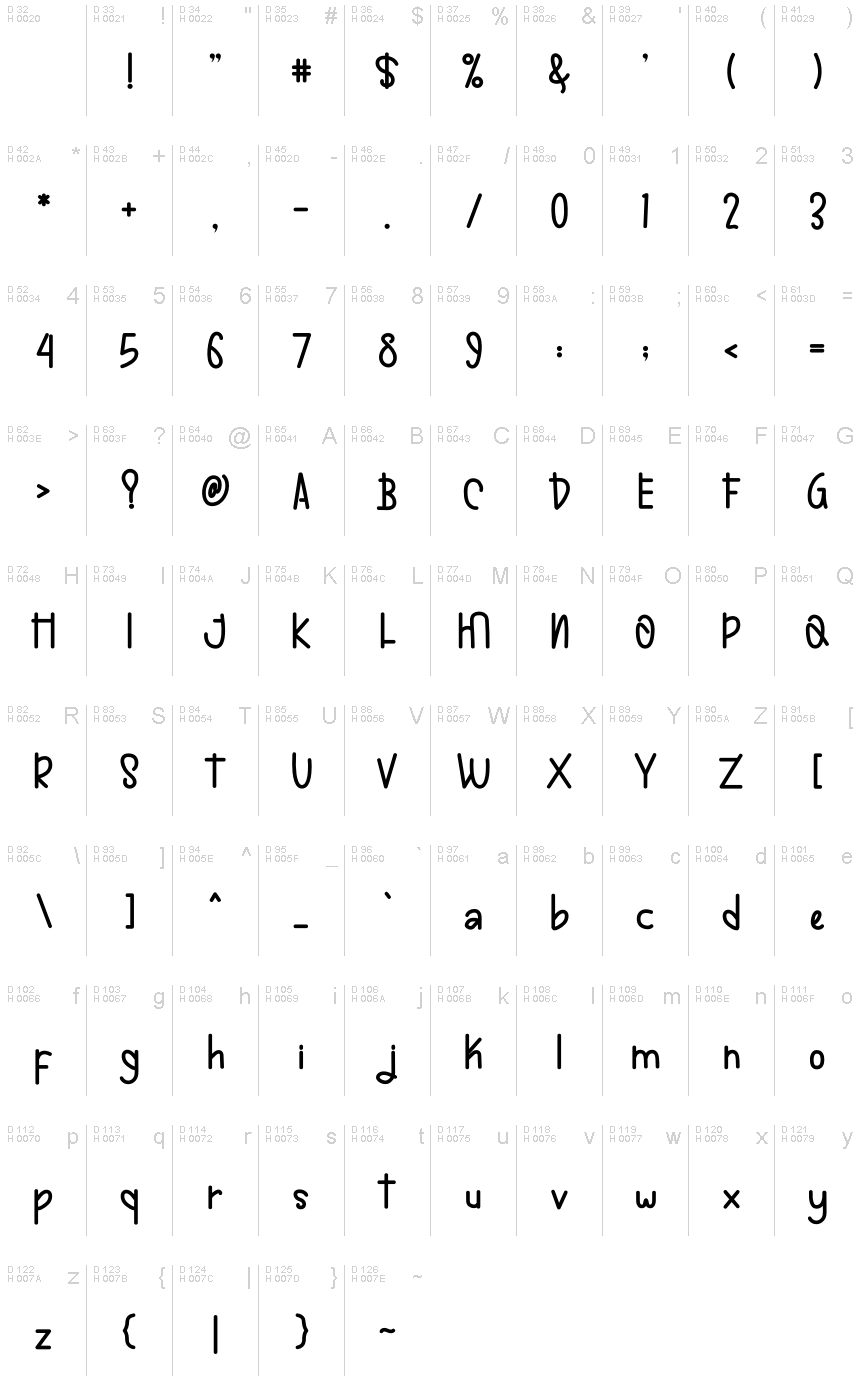
SPRING LIST
Spring List, designed by Inermedia Studio, encapsulates the essence of a personal touch with its handwritten style. This semi-light font boasts a condensed width, giving it an intimate yet clear presence on the page. Its fluidity mirrors the gentle ease of springtime writing, making it an ideal choice for projects that require a blend of elegance and casual flair.
The aesthetic appeal of Spring List lies in its ability to convey warmth and approachability without sacrificing sophistication. It is perfectly suited for invitations, branding materials, and any creative endeavor that benefits from a handcrafted feel. The unique characteristics of Spring List ensure that it stands out in a sea of typefaces while remaining versatile enough to complement various design contexts.